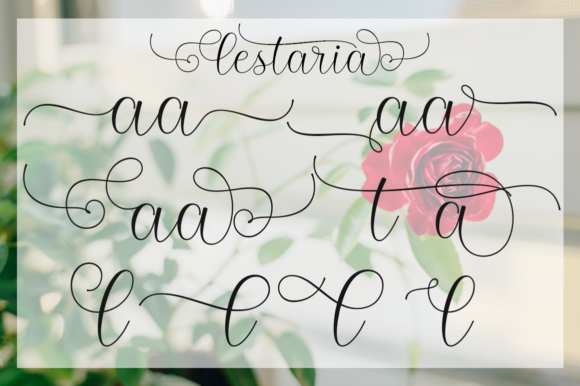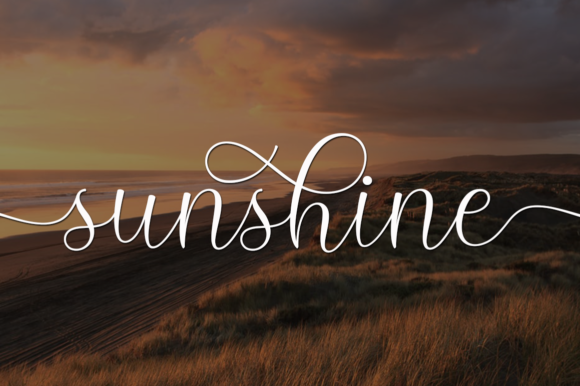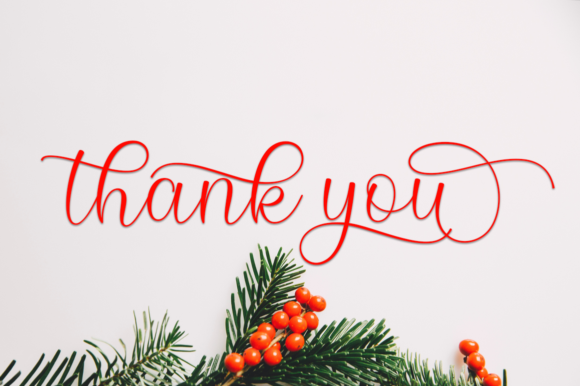
Introduction to Lestaria Font
As a designer, have you ever found yourself pouring over a blank canvas, searching for the perfect font to bring your creative project to life? I know I have! It’s that moment of inspiration, when the right font suddenly appears and transforms your design into something truly magical. For me, that moment came when I discovered the enchanting Lestaria Font. Its elegant swashes and refined lines add a touch of sophistication to any design, making it a valuable addition to any craft library.
With its high-quality design and transparent background, Lestaria Font is a free download that’s perfect for designers looking to elevate their creative projects. Whether you’re working on a logo, a brochure, or a website, this beautiful script font is sure to make your design stand out. As a design resource, Lestaria Font is a must-have for anyone looking to add a touch of elegance and sophistication to their work.
Key Features of Lestaria Font
- Unique, elegant script font with a transparent background, perfect for adding a touch of sophistication.
- Perfect for use in digital design, including websites, social media graphics, and advertising materials.
- Unique characteristics include swashes, ligatures, and alternate characters, allowing for endless creative possibilities.
Honest Review: Lestaria Font
As a designer, I’ve had the chance to work with a variety of fonts for my creative projects, and I must say that the Lestaria Font is a great addition to my design resource library.
What works well with this font is its versatility and high quality. It’s available for free download, which is always a plus. The font comes in a range of weights, making it perfect for a variety of design needs. I’ve used it for both print and digital projects, and it’s always looked great. The transparent background option is also a nice touch, allowing me to easily incorporate it into my designs.
- ✨ Great for titles and headings due to its bold and eye-catching design
- ✨ Suitable for digital projects, such as social media graphics and website designs
- ✨ Can be used for print materials, such as business cards and brochures
However, there are a few limitations to keep in mind. The font may not be the best choice for large blocks of text, as it can become overwhelming. Additionally, the font may not be as legible at smaller sizes.
Overall, I’m very impressed with the Lestaria Font. It’s a great resource for any designer looking for a high-quality font for their next creative project.
Tips for Getting the Most Out of Lestaria Font
To get the most out of the Lestaria Font, experiment with different font sizes, colors, and combinations to find the perfect look for your design.
Compared to Lestaria Font, Alex Brush has a more organic and handmade look, making it suitable for designs that require a touch of whimsy. It’s also more expressive and can be used to convey a wide range of emotions.